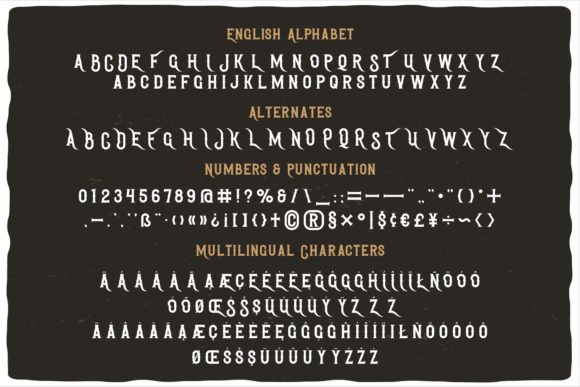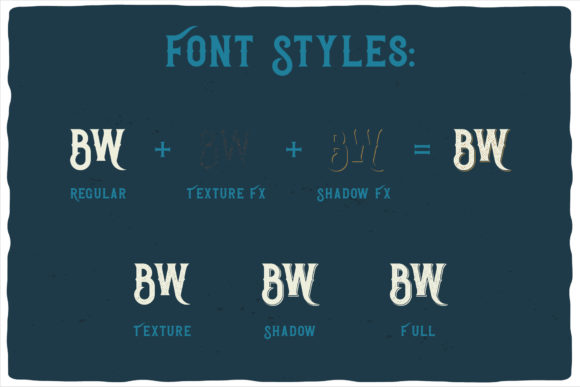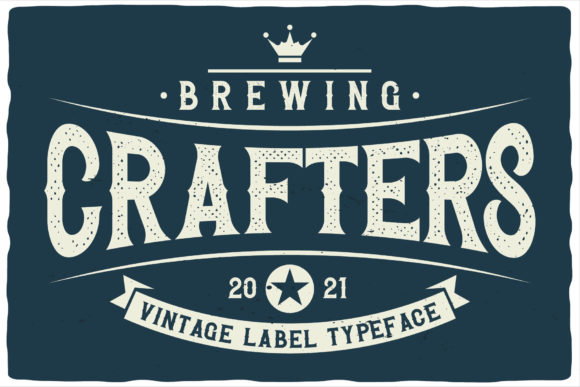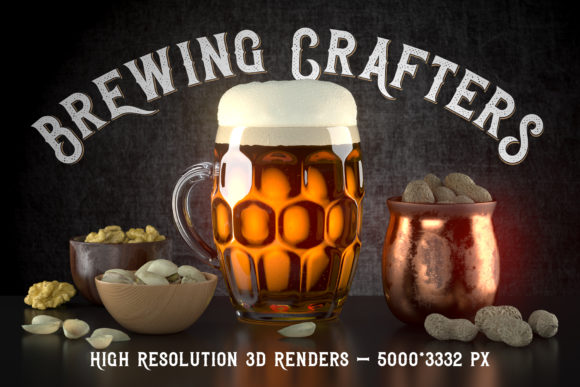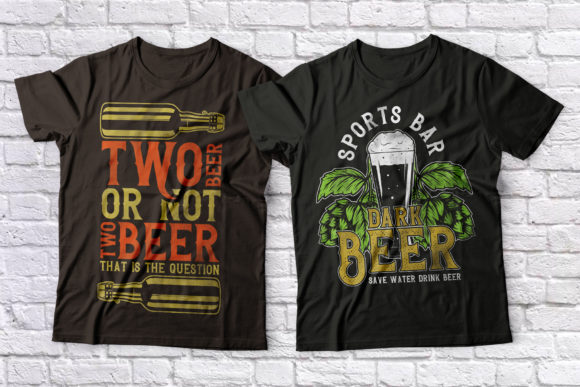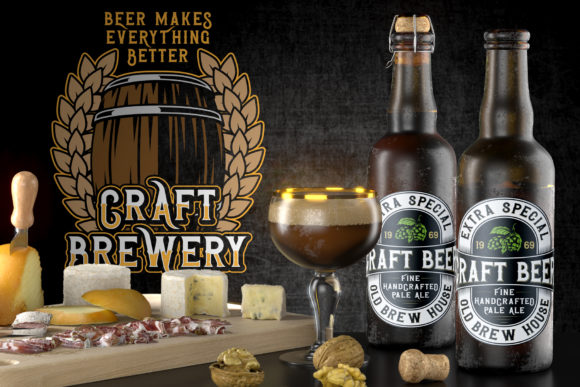
Introducing Brewing Crafters Font: The Ultimate Vintage Display Font for Crafters and Designers
Are you a designer or crafter looking for a font that exudes confidence, strength, and a touch of nostalgia? Look no further than Brewing Crafters Font, a bold, assertive, and vintage-style display font that’s perfect for adding a unique character to your designs. In this article, we’ll dive into the features and benefits of Brewing Crafters Font, and explore how it can elevate your design game.
A Bold and Assertive Font for the Modern Crafter
Brewing Crafters Font is a bold, assertive font that’s designed to make a statement. Its strong, confident lines and vintage flair evoke a sense of nostalgia and authenticity, making it perfect for crafters and designers who want to add a touch of classic charm to their designs. Whether you’re creating a logo, label, or packaging design, Brewing Crafters Font is sure to turn heads.
Key Features of Brewing Crafters Font
• Bold and Assertive: Brewing Crafters Font is a bold, assertive font that’s designed to make a statement. Its strong lines and confident style ensure that your designs will stand out from the crowd.
• Vintage Flair: With its vintage-style design, Brewing Crafters Font adds a touch of nostalgia and authenticity to your designs. Perfect for crafters and designers who want to create a classic, timeless look.
• Dynamic and Versatile: Brewing Crafters Font is a dynamic and versatile font that can be used in a variety of design applications, from logos and labels to packaging and branding.
• Easily Readable: Despite its bold style, Brewing Crafters Font is easily readable, making it perfect for use in headlines, titles, and other design elements.
Perfect for Crafters and Designers
Brewing Crafters Font is perfect for crafters and designers who want to add a touch of personality to their designs. Whether you’re creating handmade products, designing labels and packaging, or developing a brand identity, Brewing Crafters Font is sure to inspire. Its bold, assertive style and vintage flair make it perfect for:
• Handmade Products: Add a touch of classic charm to your handmade products, such as soap labels, candle packaging, and craft labels.
• Branding and Identity: Create a strong, confident brand identity with Brewing Crafters Font. Perfect for logos, business cards, and letterheads.
• Packaging Design: Add a touch of nostalgia to your packaging design with Brewing Crafters Font. Perfect for labels, packaging, and point-of-purchase displays.
Tips for Using Brewing Crafters Font
To get the most out of Brewing Crafters Font, here are a few tips to keep in mind:
• Use it as a Statement Piece: Brewing Crafters Font is a bold, assertive font that’s designed to make a statement. Use it as a statement piece in your designs to draw attention and create impact.
• Pair it with Simple Fonts: To create contrast and visual interest, pair Brewing Crafters Font with simple, clean fonts. This will help to create a balanced and harmonious design.
• Experiment with Colors: Brewing Crafters Font looks great in a variety of colors, from bold and bright to muted and pastel. Experiment with different colors to find the perfect look for your design.
Brewing Crafters Font is a bold, assertive, and vintage-style display font that’s perfect for crafters and designers who want to add a touch of nostalgia and character to their designs. With its strong, confident lines and dynamic style, Brewing Crafters Font is sure to inspire and elevate your design game. Whether you’re creating handmade products, designing labels and packaging, or developing a brand identity, Brewing Crafters Font is the perfect choice.